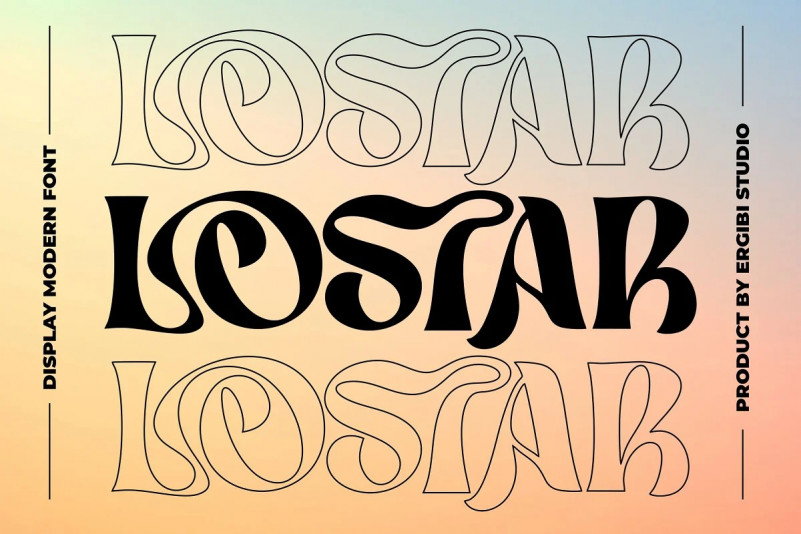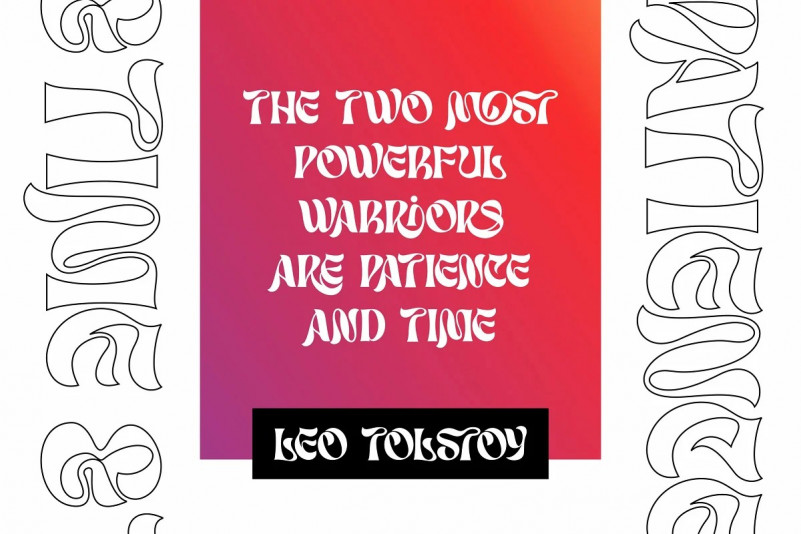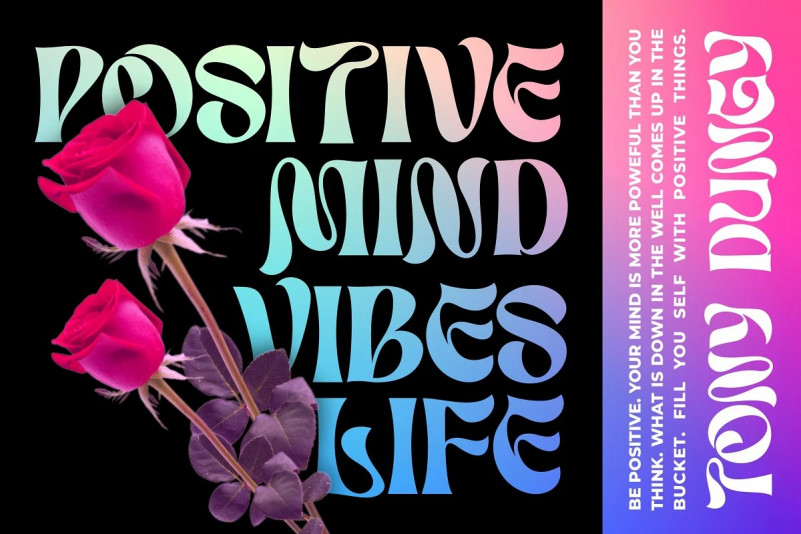
Lostar Font
LOSTAR Display Modern Font. This font has unique and bold letterform, make it great to be used for modern and minimalistic design theme. The unique ligatures on serif makes this typeface cool and stands out rather than the regular serif font, perfectly for headlines, logos, posters, packaging, T-shirts,coffee shops, restaurants, magazine’s headers, signs or gift/post cards,cafe’s and weddings or any type of advertising purpose.
LOSTAR only comes with an uppercase, Numeral, Punctuation, Ligature, and also Support Multi Language.